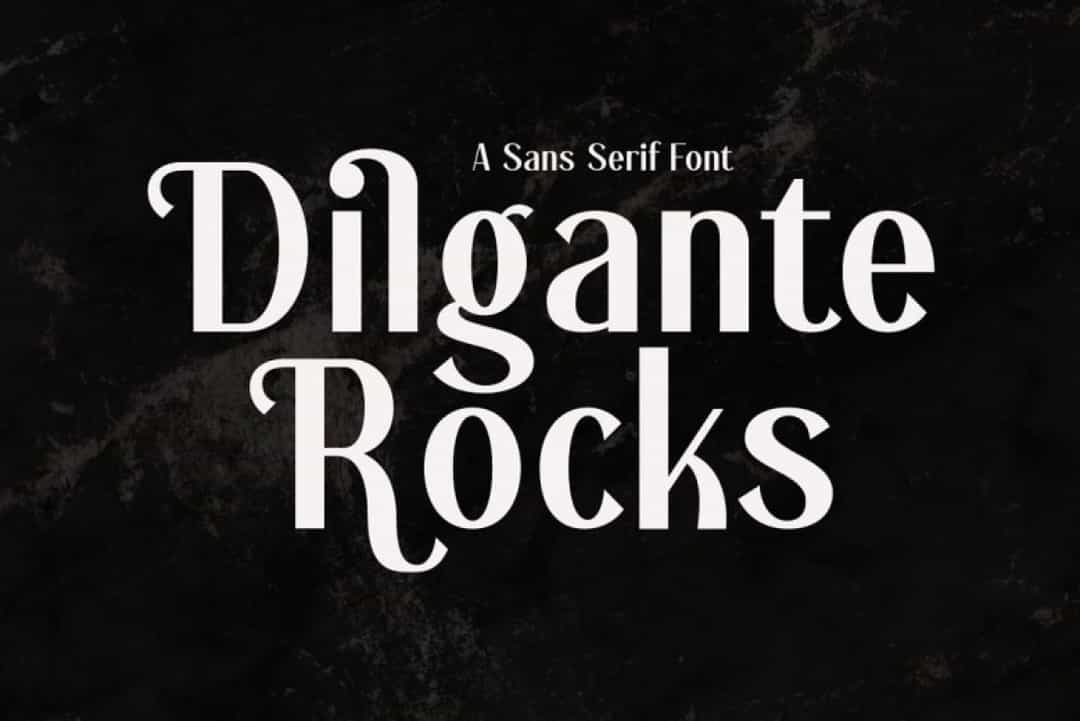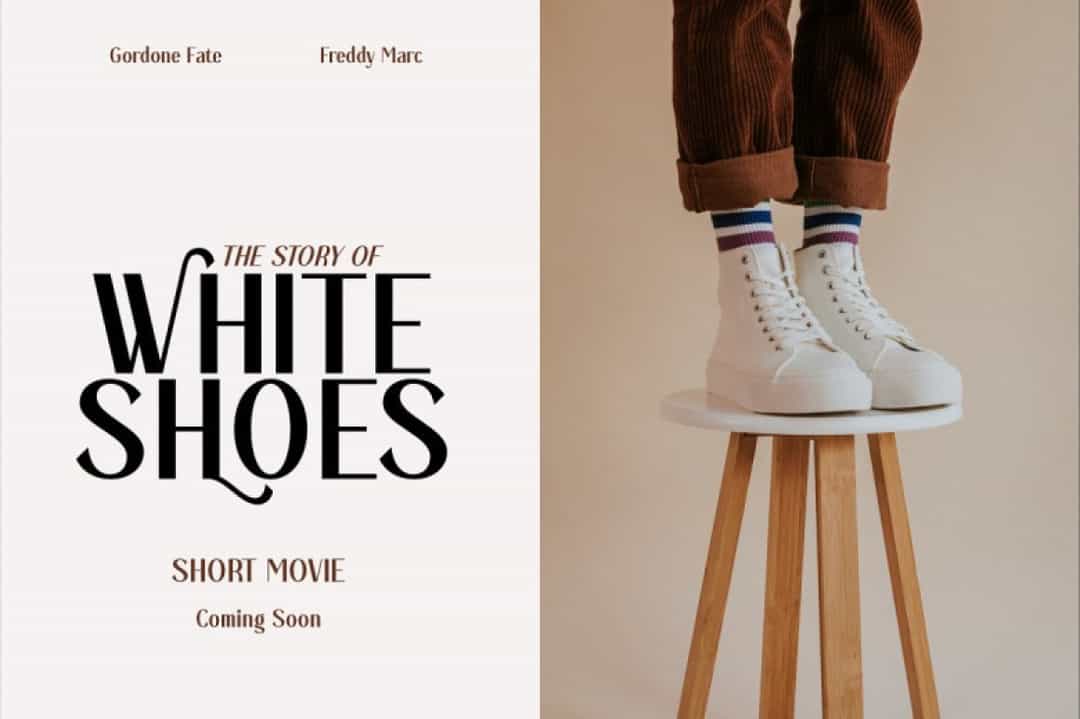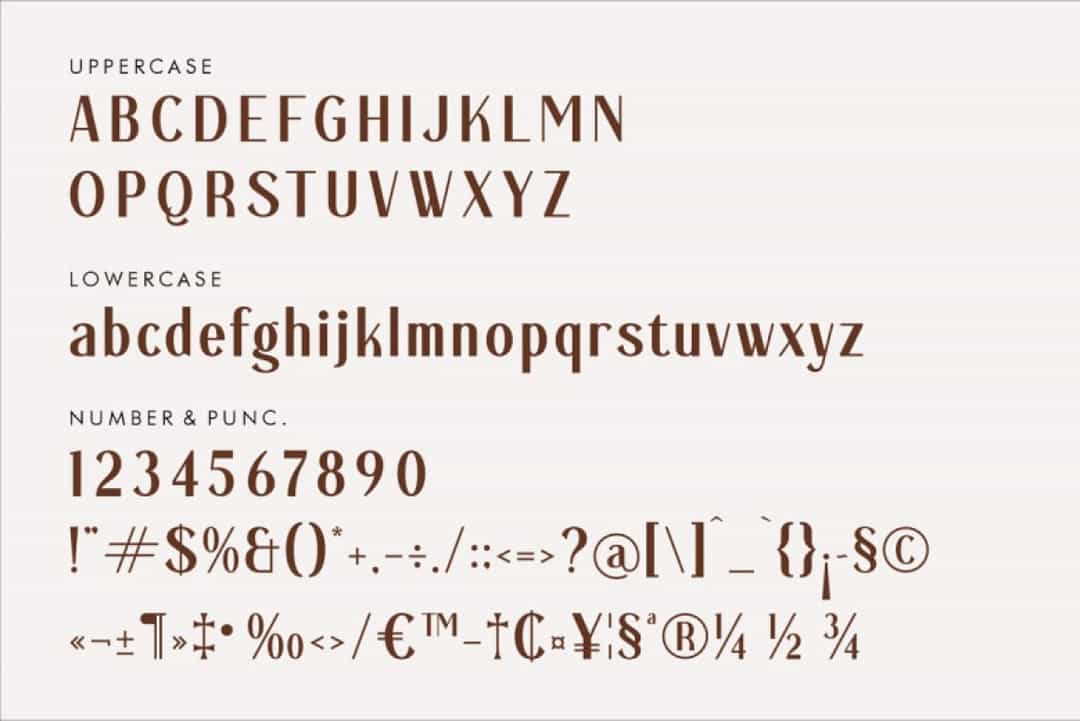
Dilgante Rocks Font from Storytype is an elegant classical sans serif font with its own distinct style and modern appearance, ideal for creating luxurious logos, book, film title designs, fashion brands letters, quotations, design projects etc. This font can also be used in clothing quotations, letters etc.